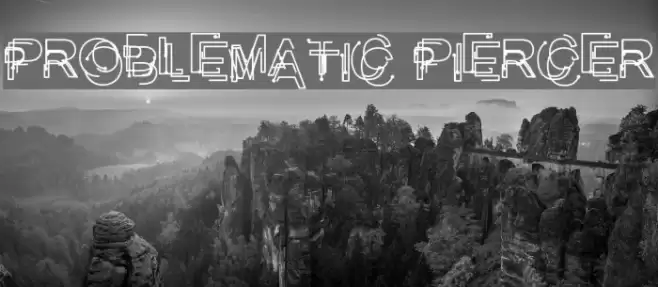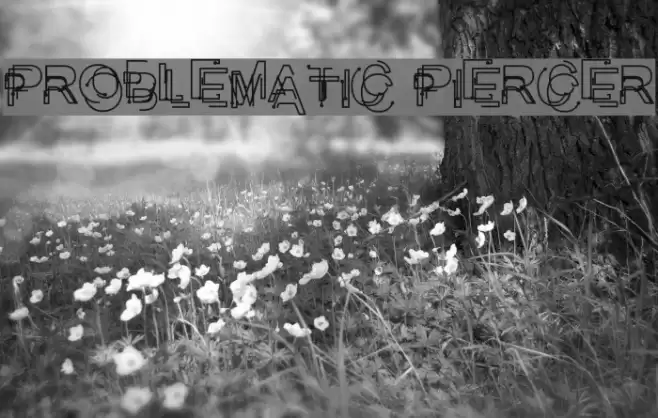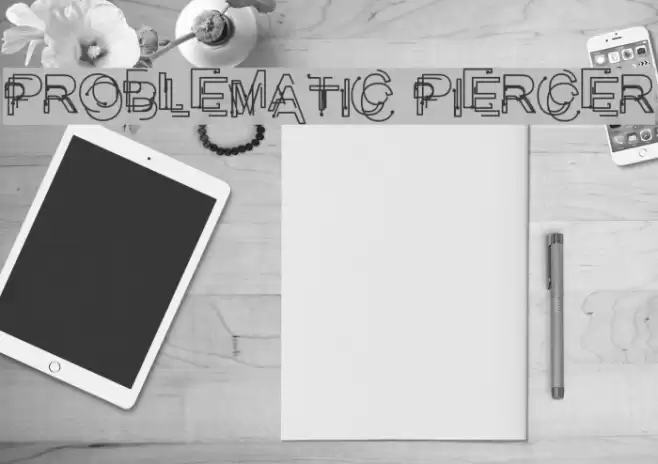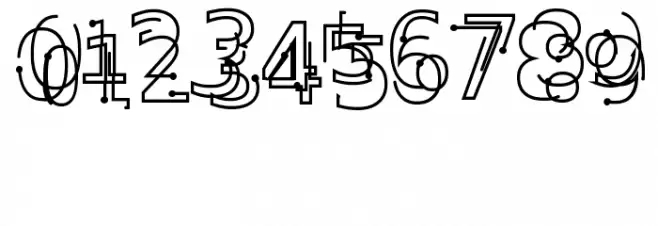
Problematic Piercer Font
Problematic Piercer Description
This font features a unique, layered design with overlapping outlines that create a striking visual effect. Each character is composed of multiple outlines, giving it a three-dimensional appearance. The style is bold and eye-catching, with a modern twist that combines elements of both traditional and contemporary typography. The uppercase and lowercase letters maintain a consistent design, while the numerals and special characters follow the same intricate pattern. This font is perfect for projects that require a standout, artistic touch.
A bold, layered font with overlapping outlines for a modern, artistic look from Distorted Eroded fonts.
- Proposed Projects: Ideal for posters, album covers, branding, and any creative project needing a bold statement.